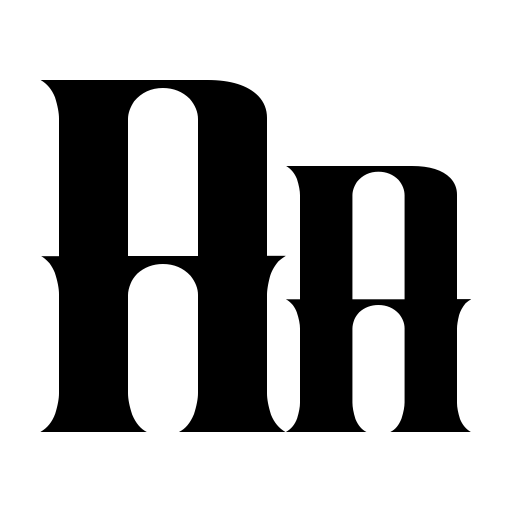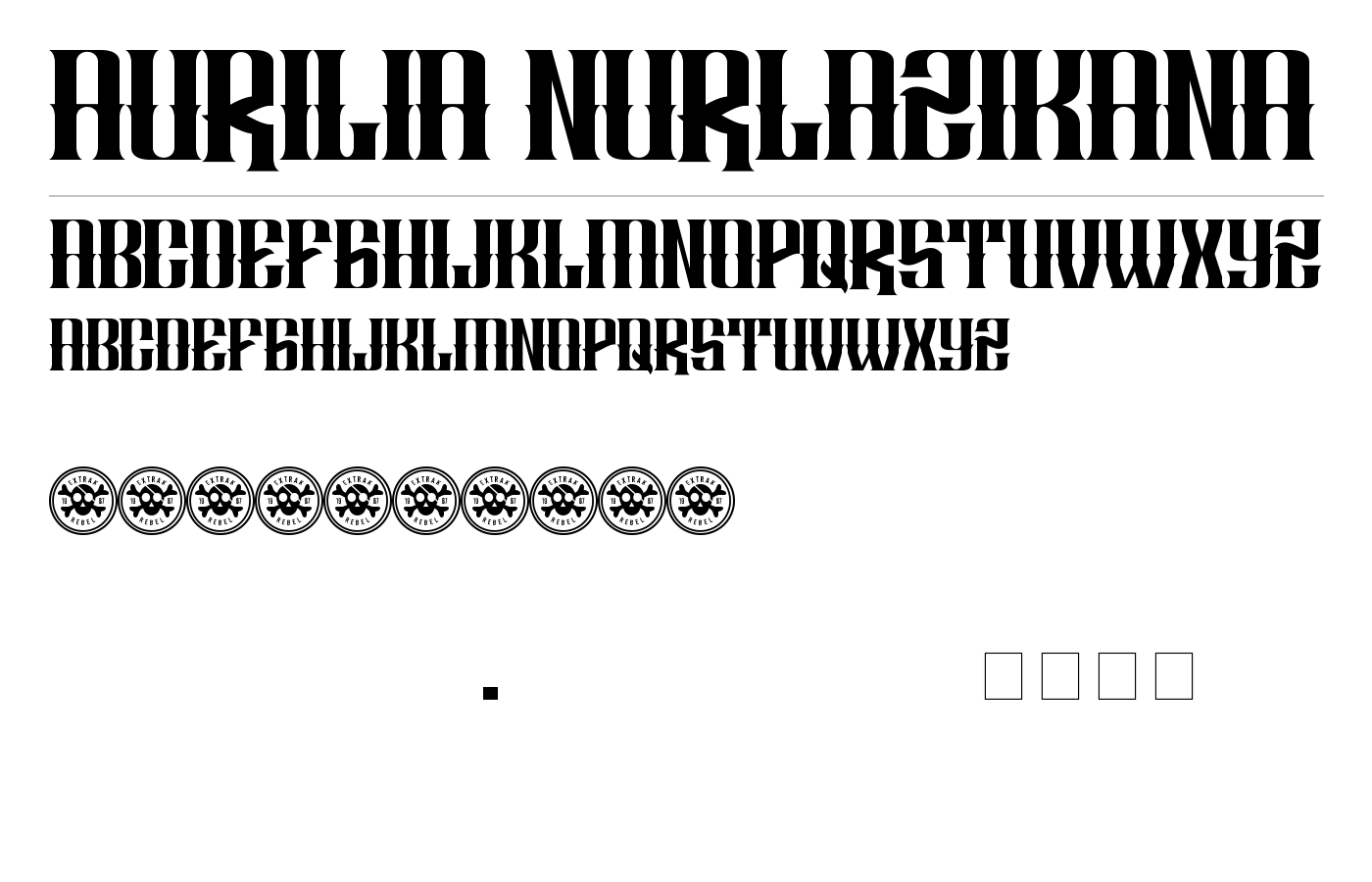
Aurilia Nurlazikana is a bold, condensed serif font with a striking modern flair, featuring high contrast between thick and thin strokes and sharp, geometric serifs. Its dramatic tall letterforms and strong vertical emphasis make it perfect for headlines, logos, and editorial designs that need a powerful, distinctive look with a touch of vintage elegance. This font works well in branding and posters where attention-grabbing style and character are essential.
AURILIA NURLAZIKANA Font
About AURILIA NURLAZIKANA Font